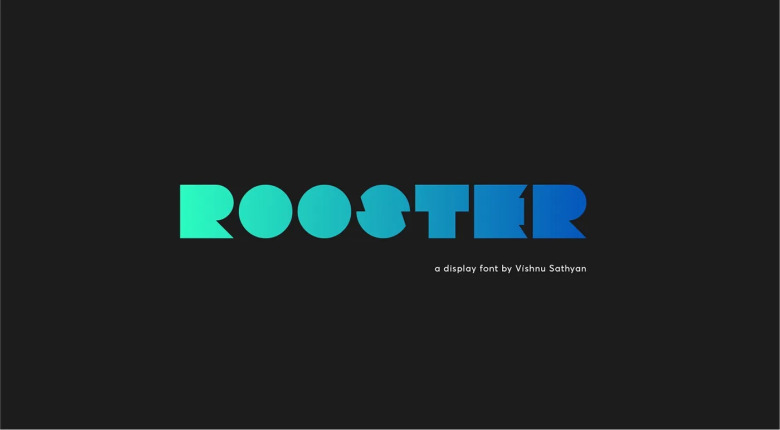
Rooster Font
Continue is a new free fonts, this is a unique font display. Introducing Rooster Font, a free font is designed and shared by Vishnu Sathyan, a designer from Bangalore, India. This is a bold, capital letters only cover, you can use it for branding, design magazine covers etc …
Rooster Display Font